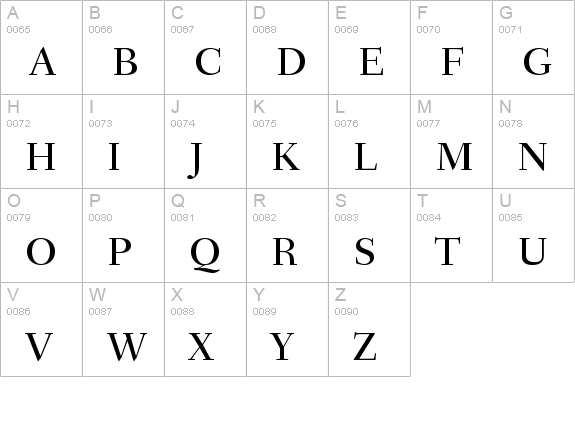
Fairfield LH 55 Medium is a balanced, medium-weight variant in the Fairfield typeface family \xE2\x80\x94 well suited to sub-headlines, navigation, and balanced editorial work.
Fairfield LH 55 Medium font is a versatile and modern typeface that combines elegance with readability. Its balanced letterforms and clean lines make it ideal for a wide range of design projects, from branding and advertising to packaging and editorial design. The medium weight of the font gives it a strong presence on the page without overwhelming the reader. What sets Fairfield LH 55 Medium font apart is that it is available for free download at FontsMarket.com. This means you can easily access this high-quality font without any cost, making it a valuable addition to your font library. Whether you're a professional designer looking for a reliable typeface or a hobbyist exploring new typography options, Fairfield LH 55 Medium font offers the perfect balance of style and functionality. Download it today and elevate your designs with this exceptional font.